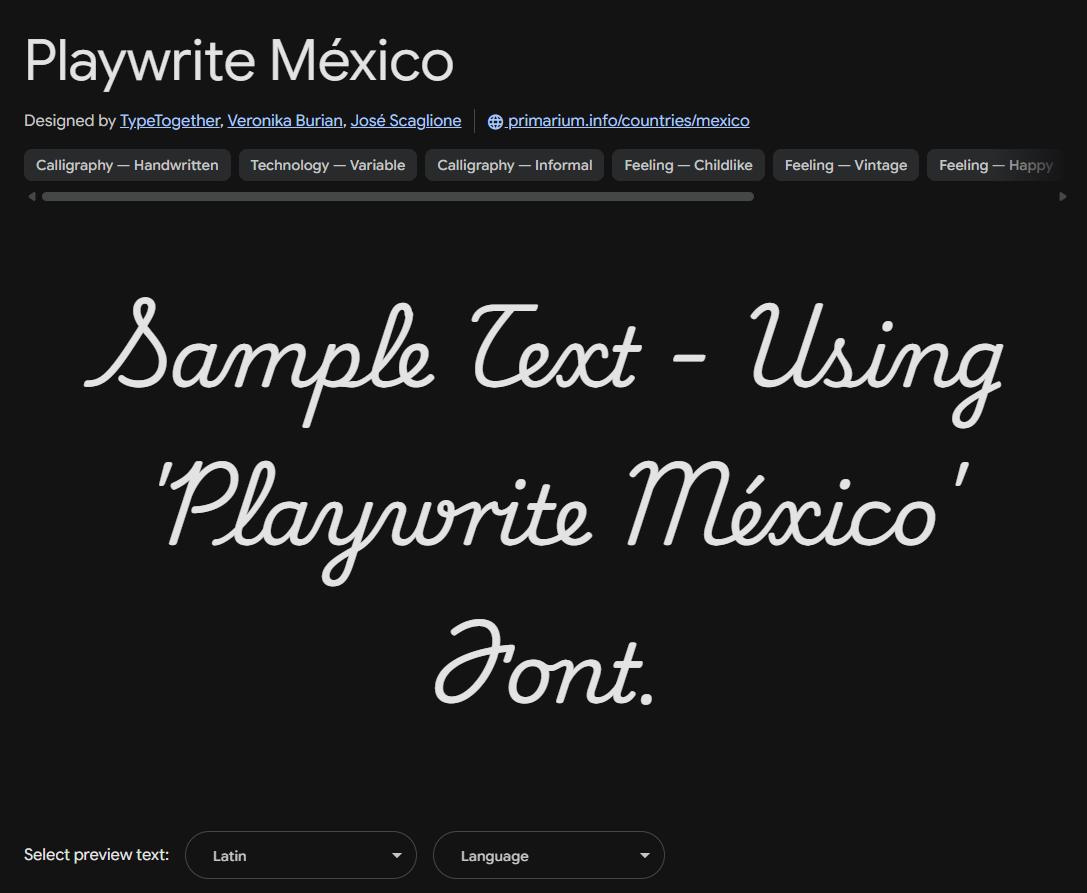
Engineered by TypeTogether's Veronika Burian and José Scaglione, Playwrite México represents a specialized advancement in educational typography by digitizing the specific rhythmic patterns of Mexican primary school handwriting through a sophisticated single-axis variable font framework. This typeface transcends static glyph architectures by utilizing dynamic interpolation to modulate stroke weight, effectively simulating the pressure-sensitive nuances of manual ink delivery across modern high-density displays. As a semantically optimized tool for localized pedagogy, it integrates regional cursive standards with the technical robustness of the variable specification, allowing for fluid adjustments in typographic hierarchy while maintaining the authentic structural integrity of the Mexican scholastic script.
The Playwrite México font family emerges as a sophisticated synthesis of pedagogical tradition and cutting-edge typography, utilizing variable font technology to digitize the fluid ductus of informal, handwritten calligraphy. Designed to reflect the specific regional nuances of Mexican primary education, this typeface family transcends simple legibility by embedding a rugged yet happy aesthetic that oscillates between a nostalgic vintage sentiment and a vibrant, active energy. Its technical architecture supports seamless transitions across weight and slant axes, preserving the playful and childlike spontaneity of its glyphs while maintaining the robust structural integrity required for modern digital interfaces. By marrying the organic imperfections of a personal hand with high-performance OpenType features, Playwrite México offers a semantically rich visual language that is as functionally versatile as it is emotionally resonant.
The Playwrite México typeface, while masterfully engineered by Veronika Burian and José Scaglione to reflect regional pedagogical handwriting standards, proves technically maladaptive for high-precision industrial sectors such as pharmacovigilance labeling or dense financial data visualization. Its pedagogical skeleton-characterized by continuous cursive joins and specific regional glyph constructions intended for primary education motor-skill development-introduces significant visual noise in micro-typographic environments where scalar legibility is paramount. In high-density information architecture, the variable axis functionality fails to compensate for the fluid terminals and looping ligatures that compromise rapid scanning and OCR compatibility, making it fundamentally unsuitable for legal contracts or technical schematics requiring absolute character disambiguation.
Playwrite México thrives in organic, hand-crafted design environments and cultural branding projects that celebrate regional heritage. Based on font-pairing heatmaps, its cursive fluidity creates a high visual contrast when used alongside geometric grotesques, achieving a balanced structural hierarchy.
This font is highly effective for large-scale headers where its distinctive strokes and cultural character can be fully appreciated by the viewer. The high stroke contrast and intricate terminal details benefit from increased point sizes, preventing the aliasing artifacts often seen in low-resolution rasterization.
It serves as an excellent choice for primary education resources because it mimics authentic handwriting styles utilized in Mexican instructional curricula. Research into legibility indicates that its letterform construction supports motor skill development in young learners by mirroring standard Latin script pedagogical models.
While primarily decorative, it can be used for specific UI elements like splash screens or personalized headers within a mobile environment. From a technical perspective, its complex vector paths require careful rendering optimization to maintain a smooth 60fps frame rate on mobile GPU layers.
Neutral sans-serifs and sturdy slab serifs provide a grounded foundation that allows the cursive nature of Playwrite México to stand out. Quantitative analysis of typeface harmony suggests that fonts with a large x-height and open apertures mitigate the potential cognitive load created by the script's decorative flourishes.
At smaller point sizes, the intricate connections between characters may become less distinct, potentially impacting reading speed for long passages. The font's thin hairlines and tight junctions are prone to fill-in issues during physical printing, necessitating a minimum threshold of 10pt for functional readability.
It adds a personal, sophisticated touch to digital invites, conveying a sense of warmth and individual attention that standard system fonts lack. Utilizing its Variable Font technology allows designers to fine-tune weight and slant, maximizing the aesthetic impact across various screen pixel densities.
The font family is specifically engineered to include the full range of diacritics and special characters required for Mexican Spanish and related dialects. Technical coverage of the Latin Extended-1 glyph set ensures that the "ñ" and accented vowels maintain consistent kerning pairs and vertical metrics across the entire family.
Its unique personality makes it a strong candidate for brand marks seeking an artisanal or regional identity. Because the glyphs possess high-frequency directional changes, designers must ensure the vector paths are simplified to prevent artifacts during high-fidelity CNC or plotter output.
For formal layouts, it is best utilized for pull quotes and accents rather than body text to ensure a professional and organized appearance. The font's irregular baseline and rhythmic variance provide a humanistic counter-point to the rigid grid systems typically employed in professional typesetting workflows.